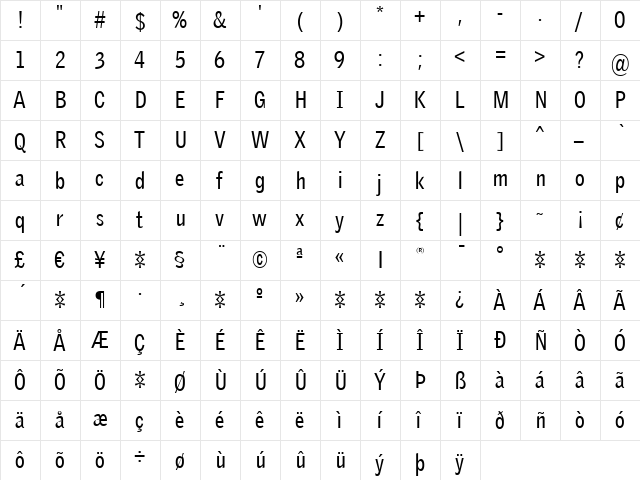
GriffithGothic Cond Regular Regular
Design Context for GriffithGothic Cond Regular Typeface
GriffithGothic Cond Regular has the quiet confidence of well-executed sans-serif typography: versatile, unobtrusive, and dependable at any size. Its narrow stance lets it pack a punch even in space-constrained designs.
Font Pairing: Works well alongside a characterful serif or display font that can carry the expressive load while GriffithGothic Cond Regular handles the functional copy.
Pro Tip: Use GriffithGothic Cond Regular tightly set in headlines and banners — its condensed proportions make it ideal for maximum impact in minimum horizontal space.